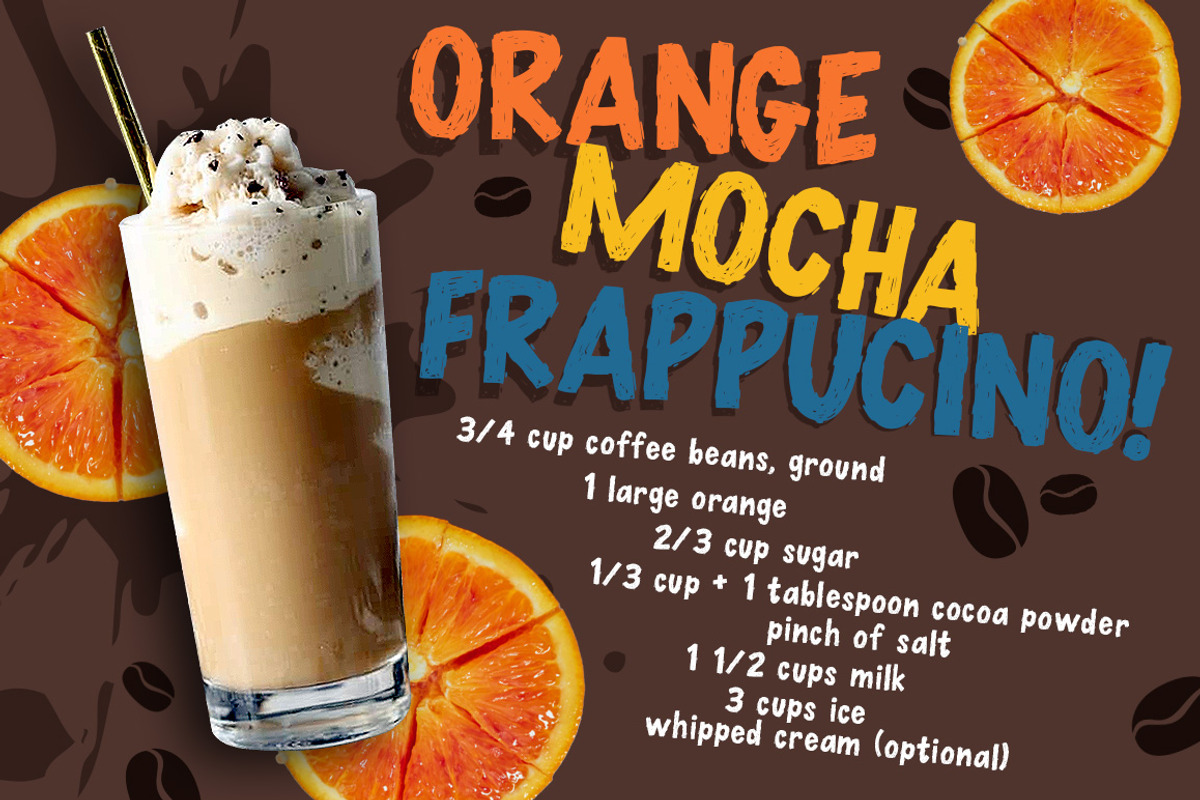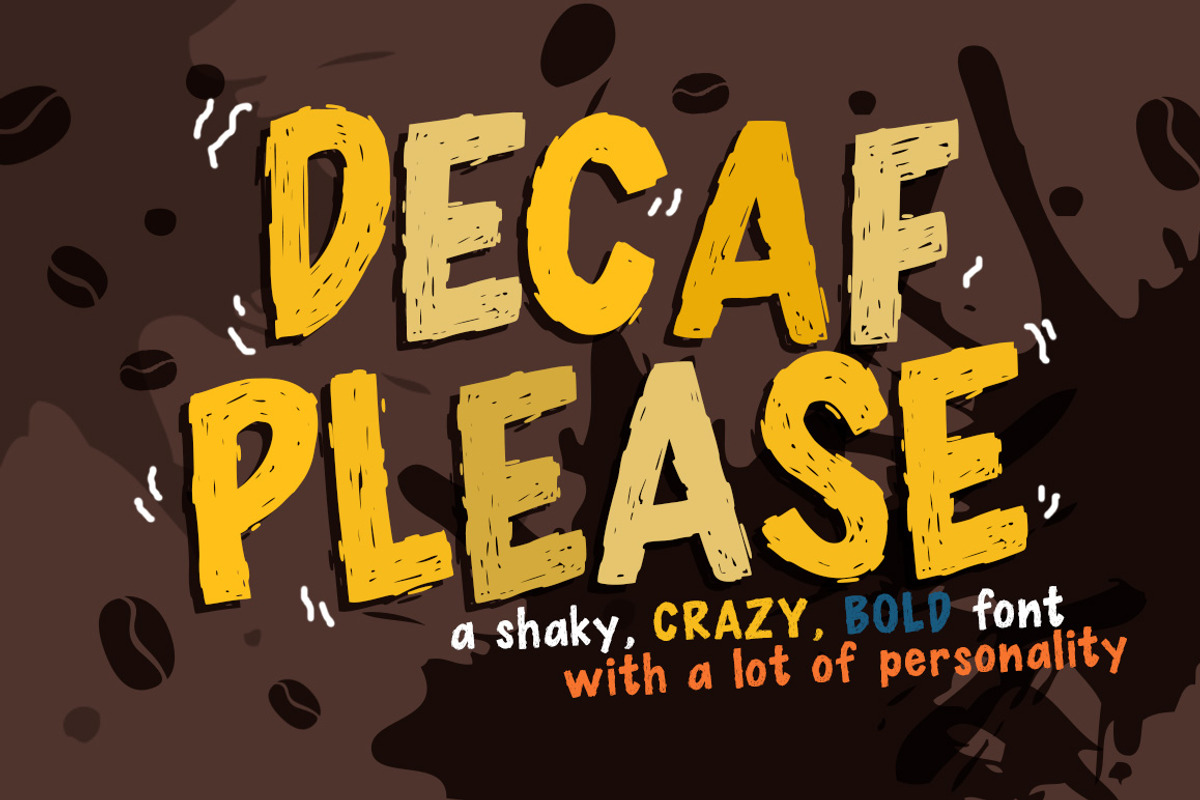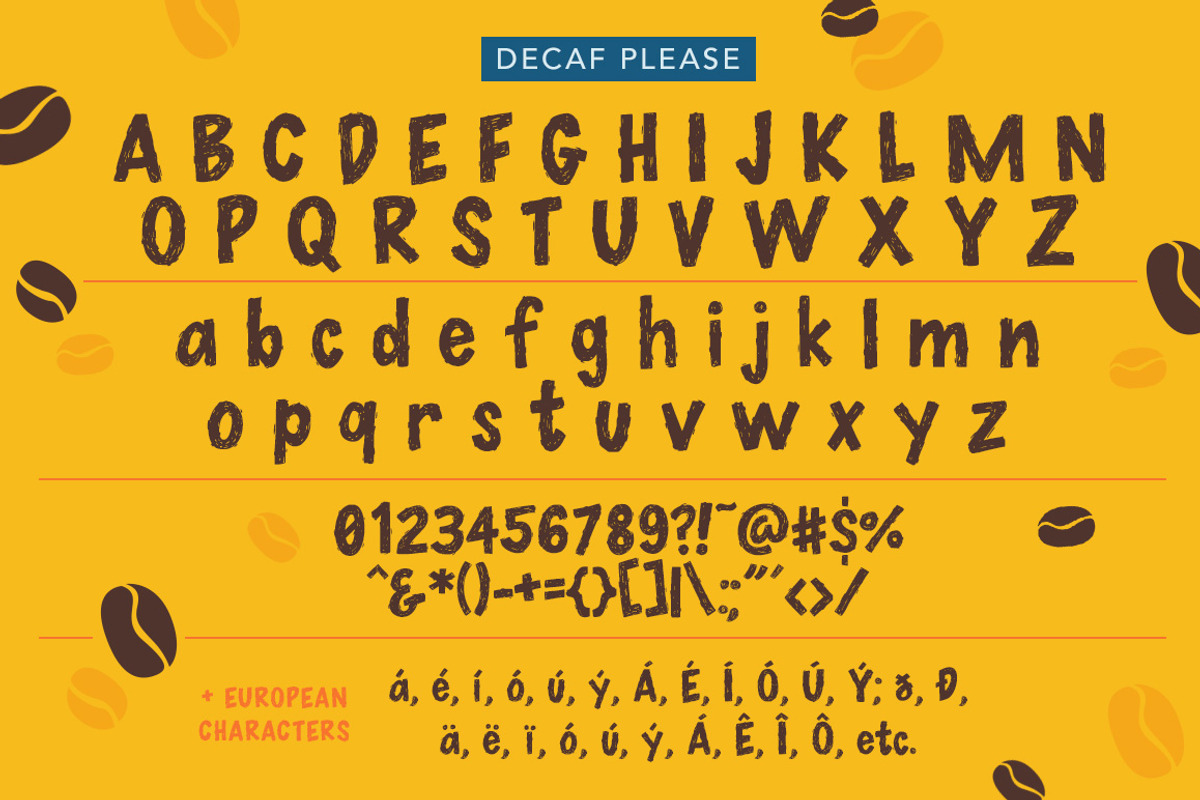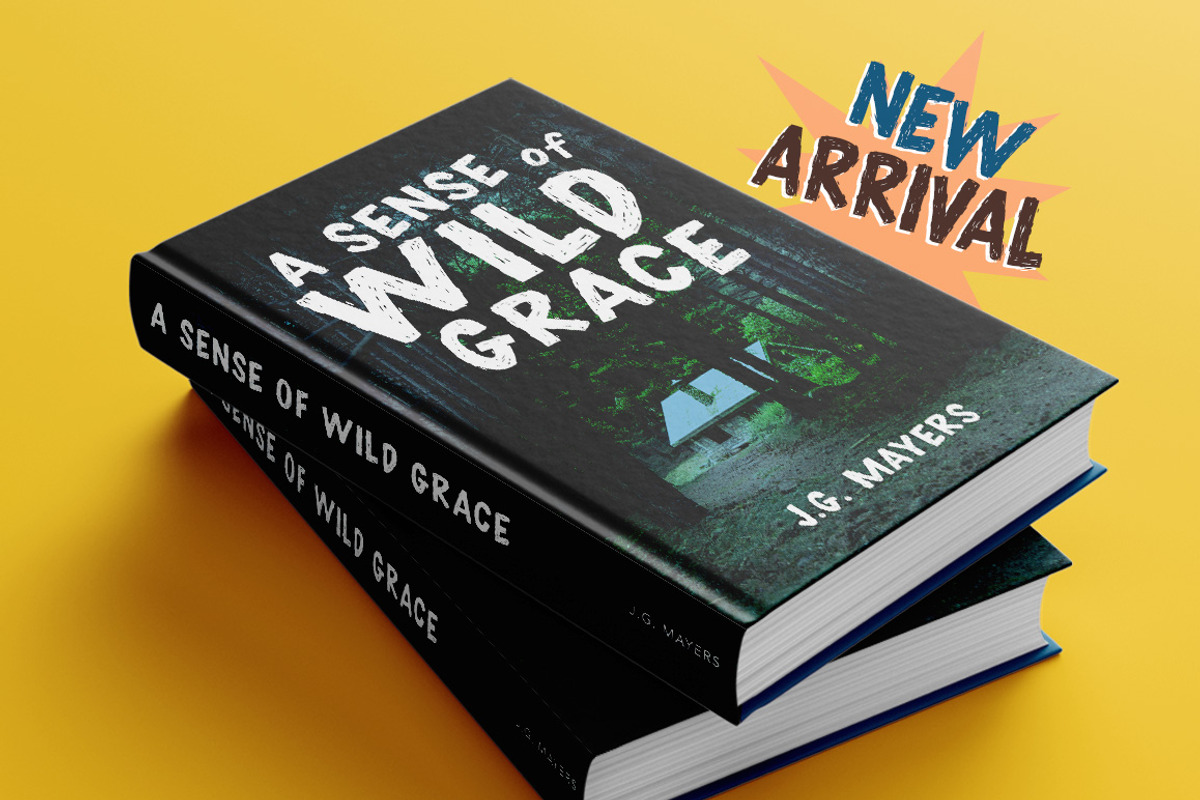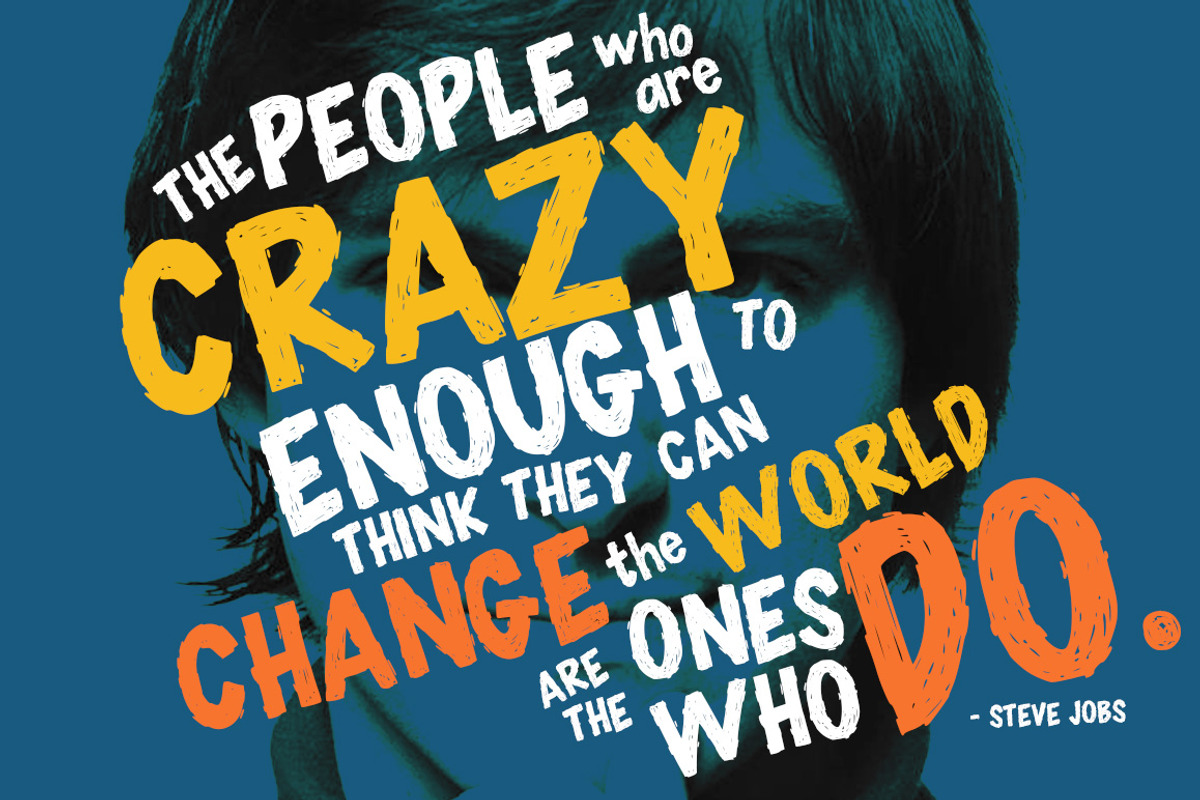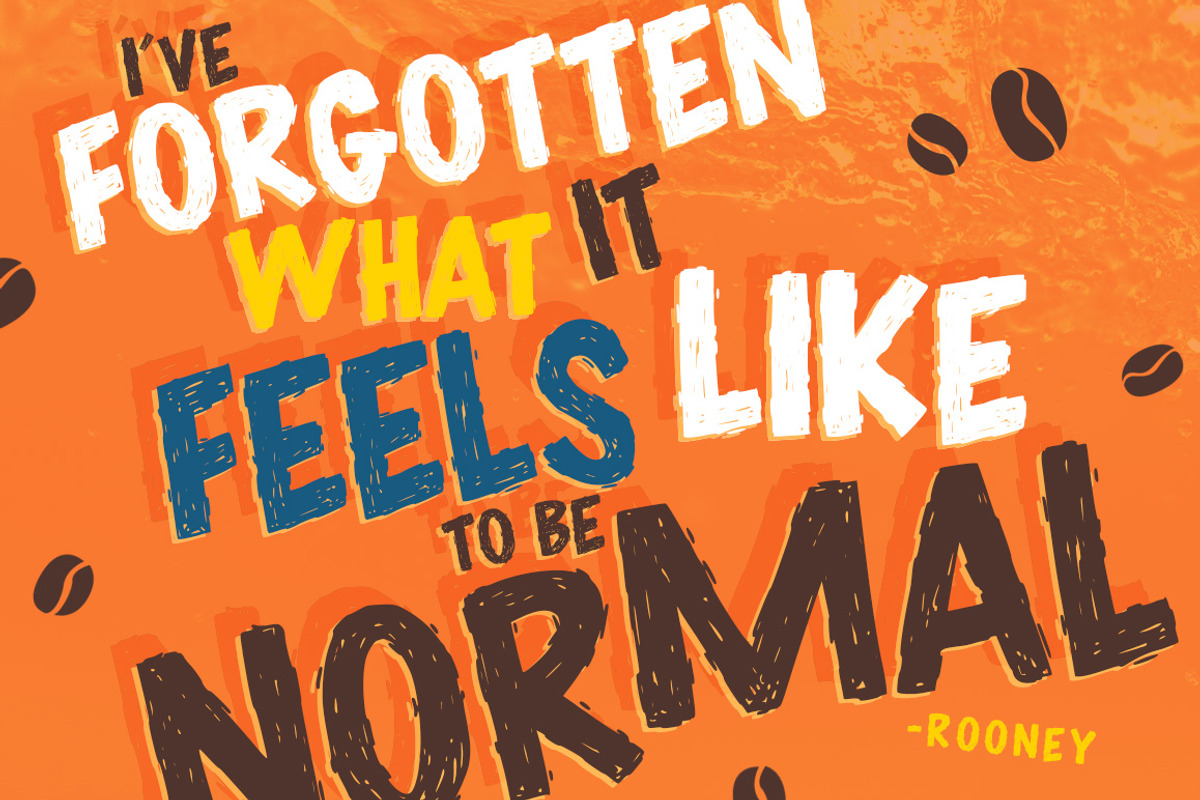
Decaf Please Font
Decaf Please is a super cool, fun, and crazy font that's loaded with personality. Shaky, jittery, unstable... just like you. LOL. Use it on your projects to pack punch and power to your headlines!
Numerals and punctuation
European language characters
- Includes: All uppercase All lowercase Numerals and punctuation European language characters Enjoy!